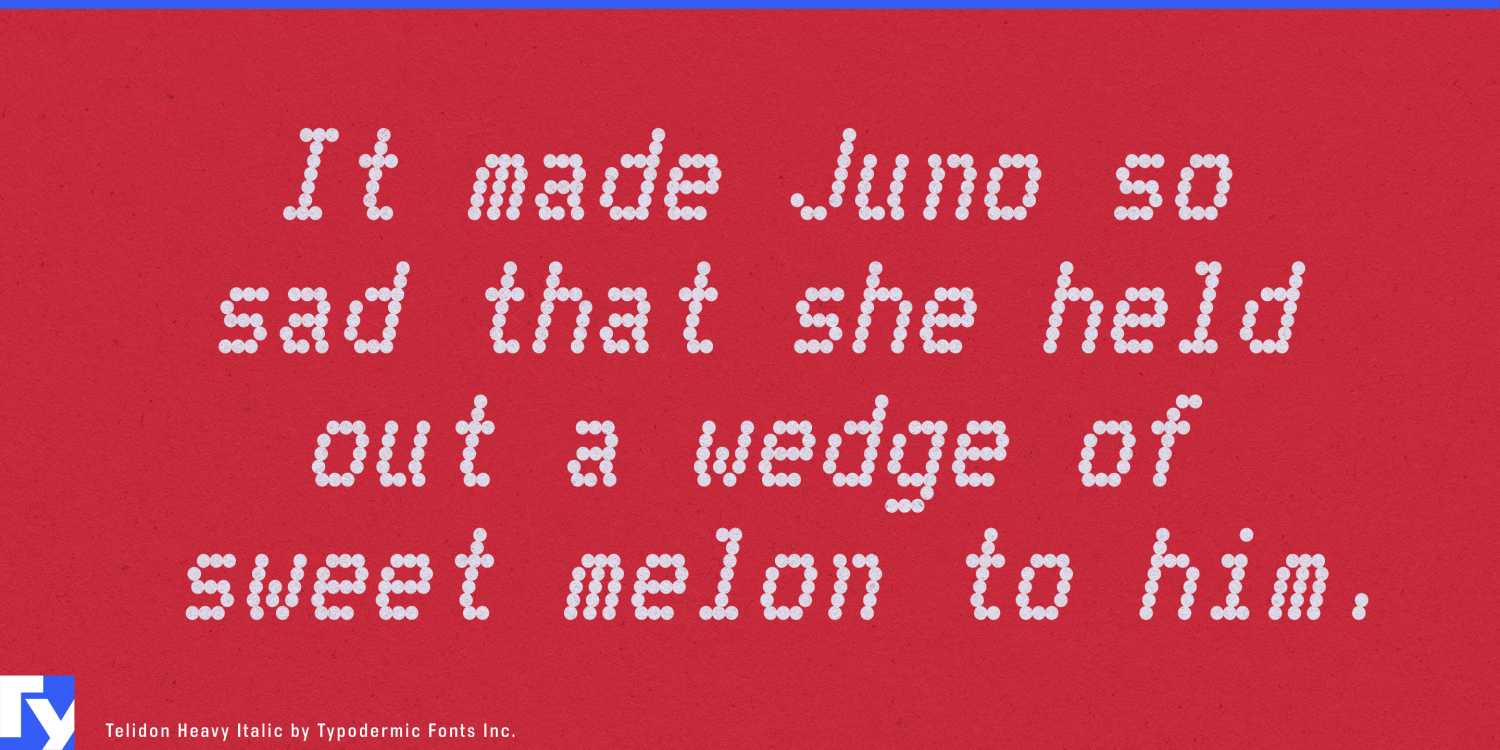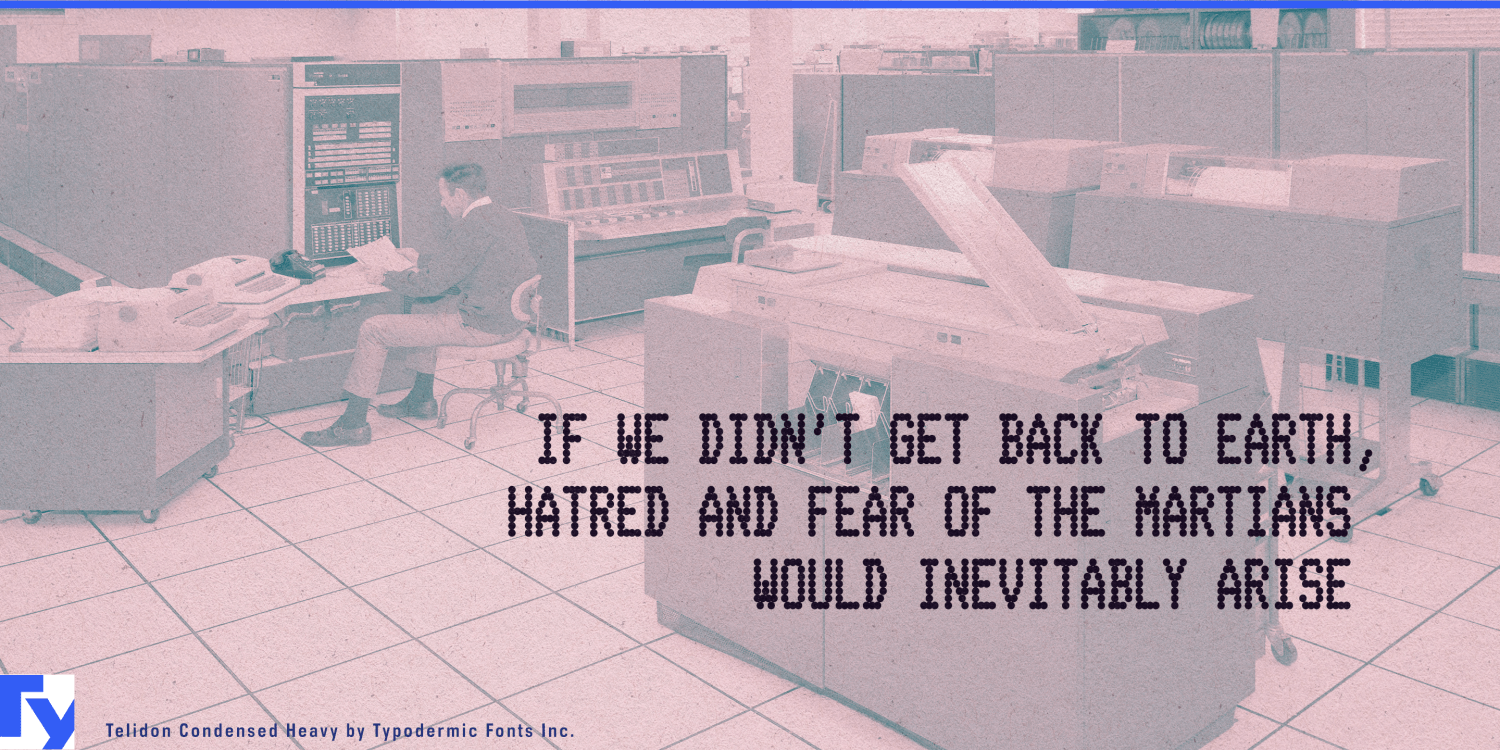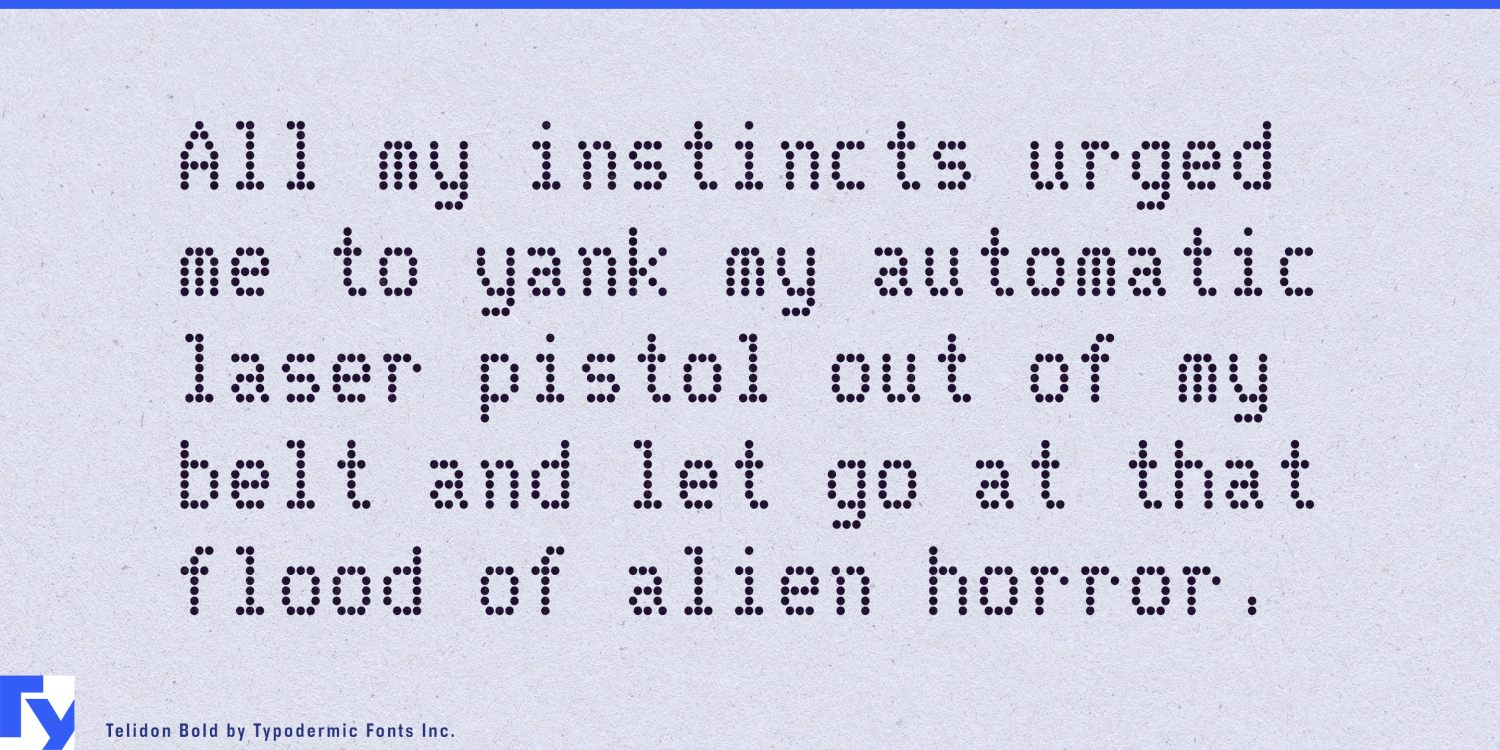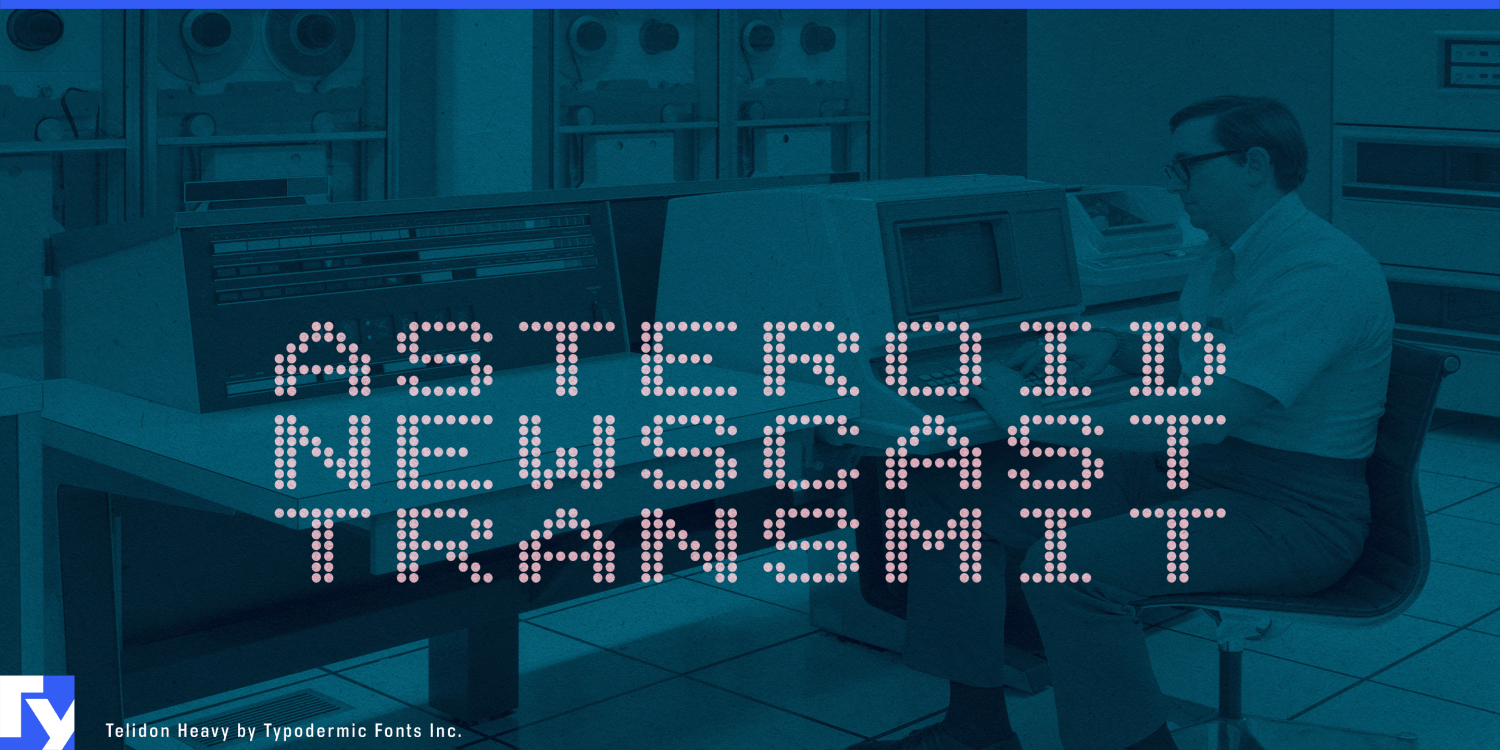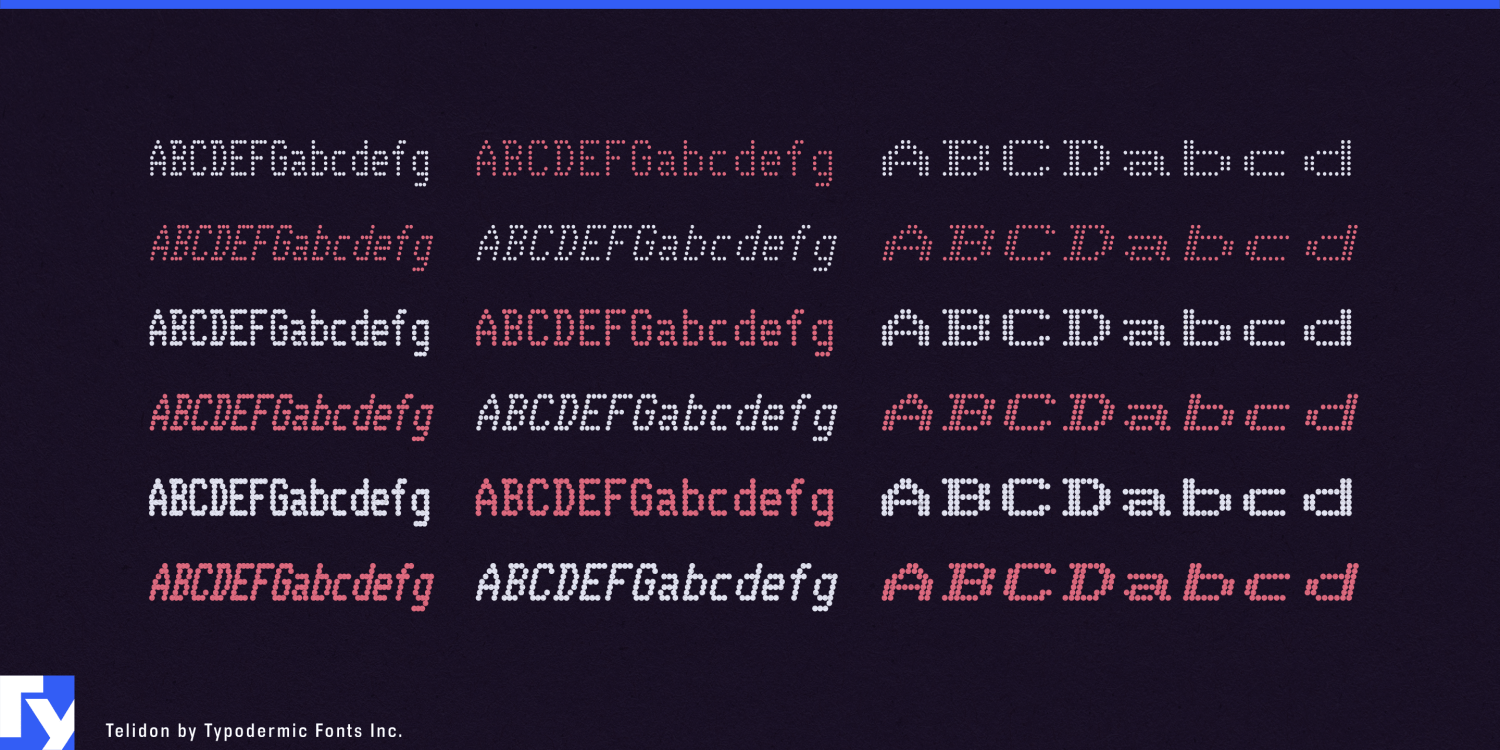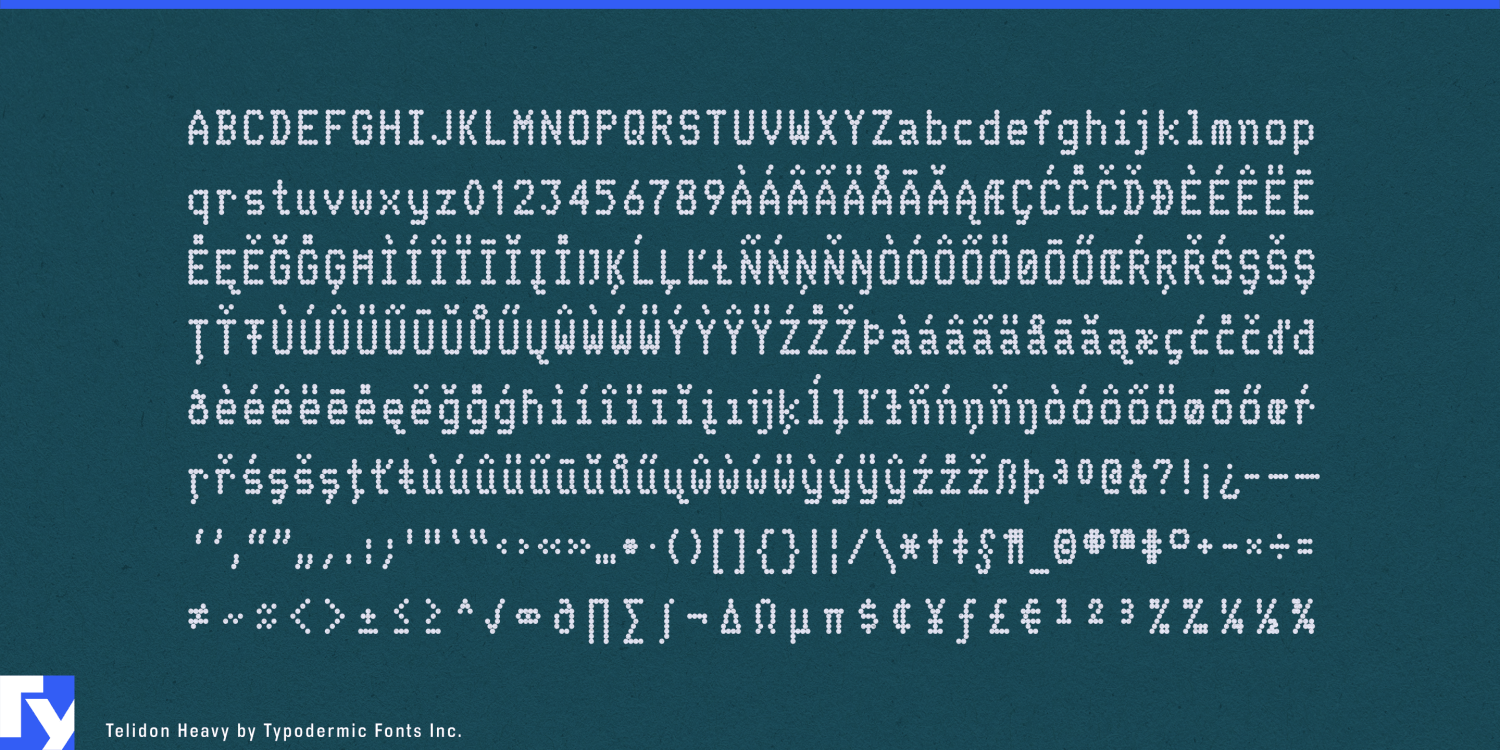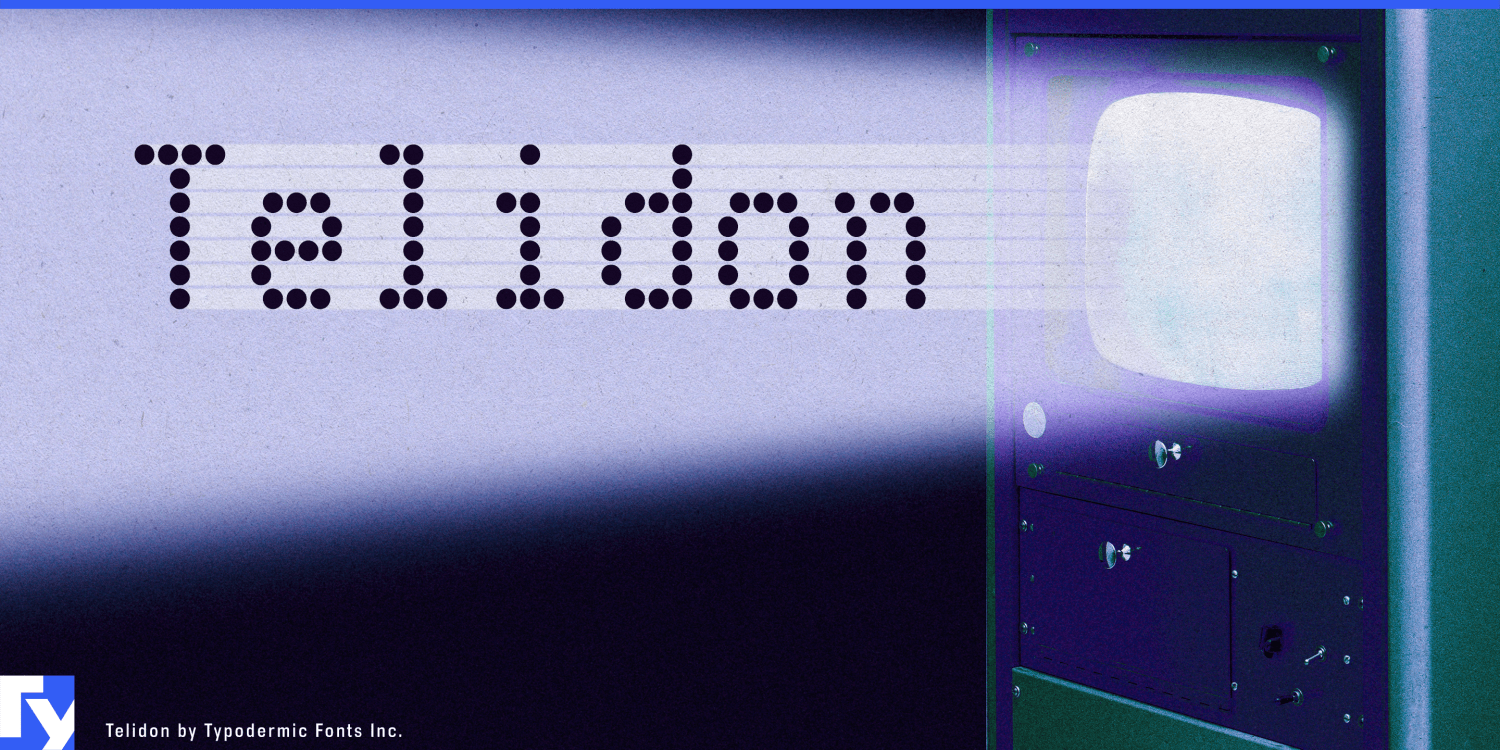
Telidon
Get ready to print your designs with pure pixel panache—Telidon has arrived, and it’s about to dot your i’s and cross your t’s like it’s 1985 all over again. Telidon is ready to transport your projects back to the days when…